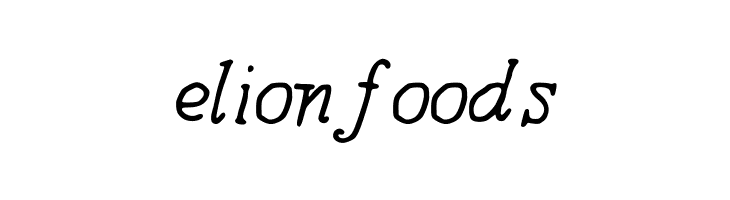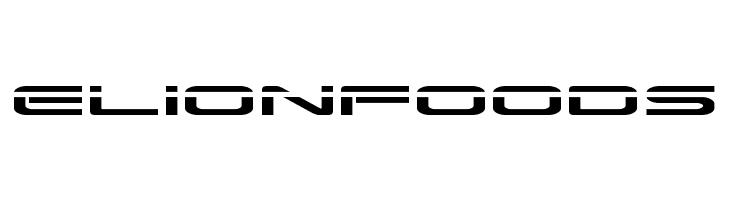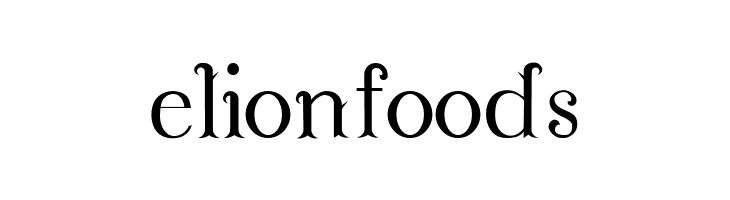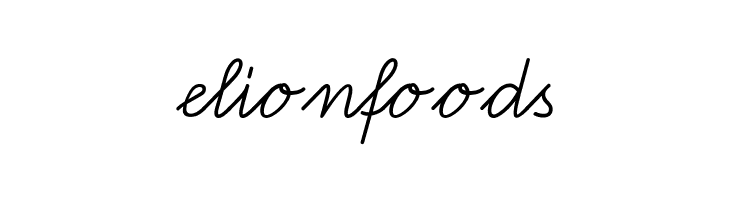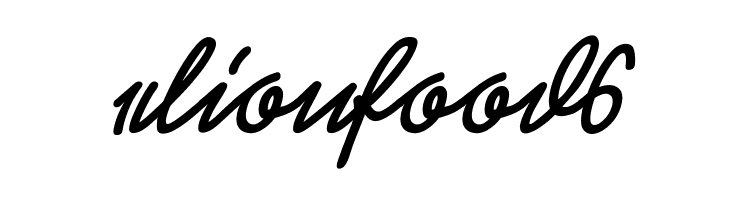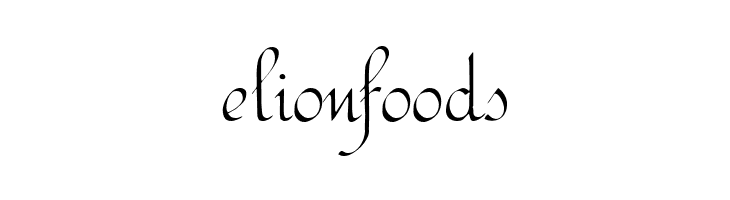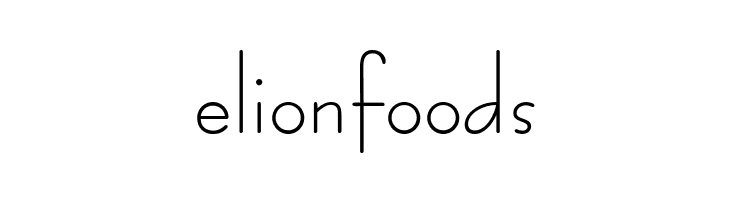
A playful, bold font with decorative loops and curls, perfect for creative projects.
A futuristic, sporty font with sleek, angular letterforms and a geometric style.
A playful, cursive font with elegant connections and a whimsical style.
A fluid and elegant script font with connected letterforms and a dynamic slant.
An elegant and flowing script font with ornate uppercase and graceful lowercase letters.
A modern, geometric font with clean lines and a sleek appearance.